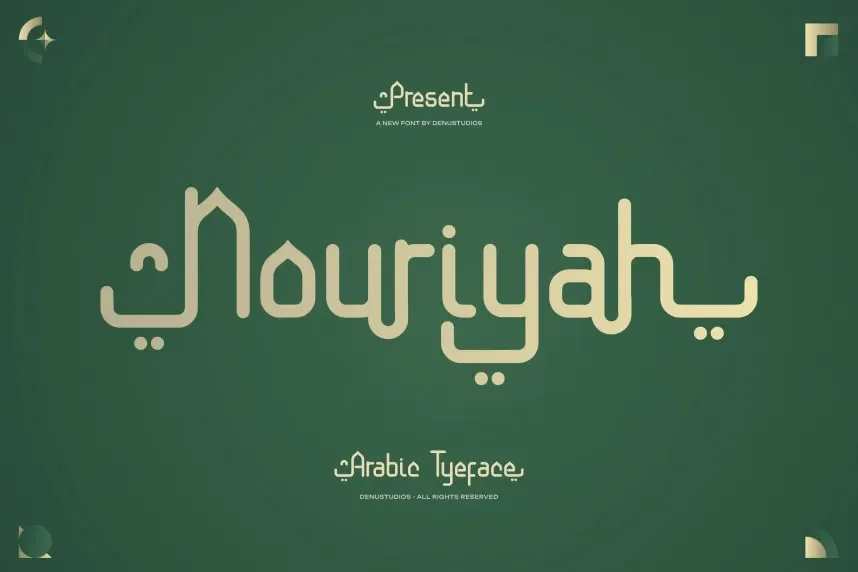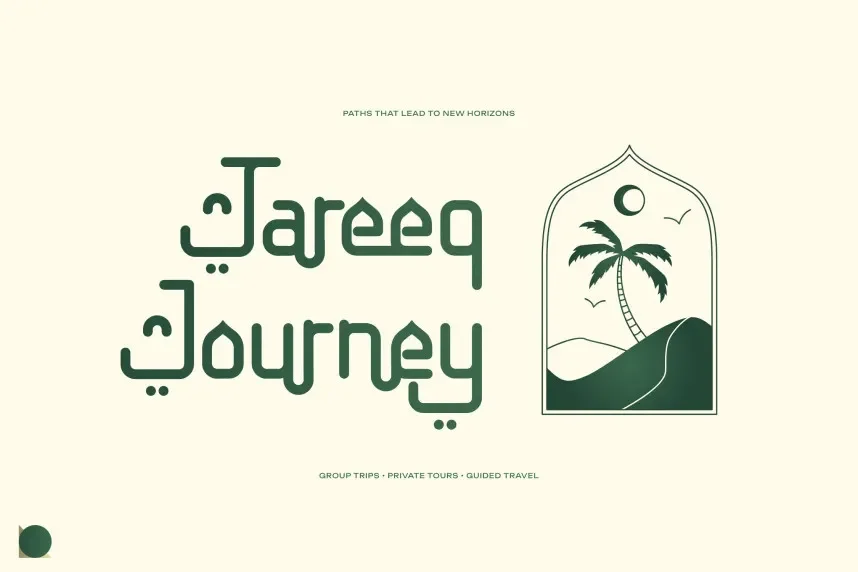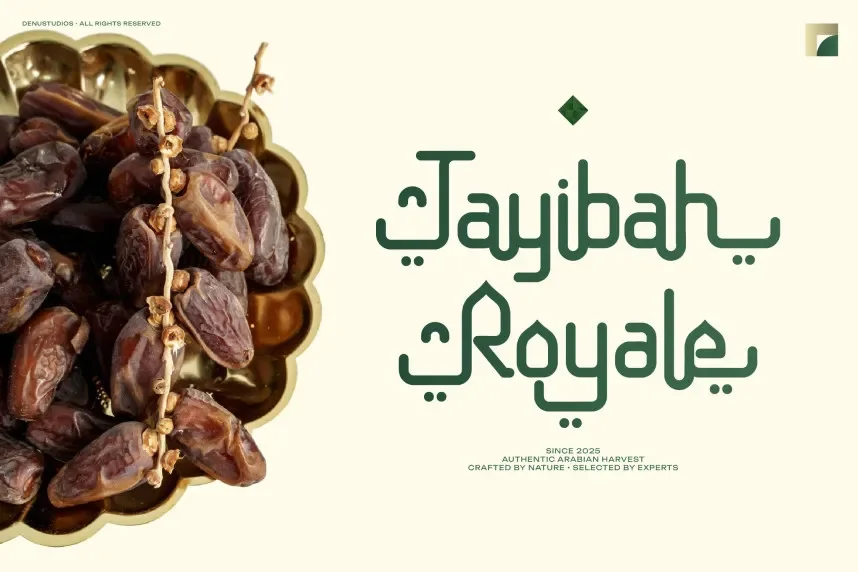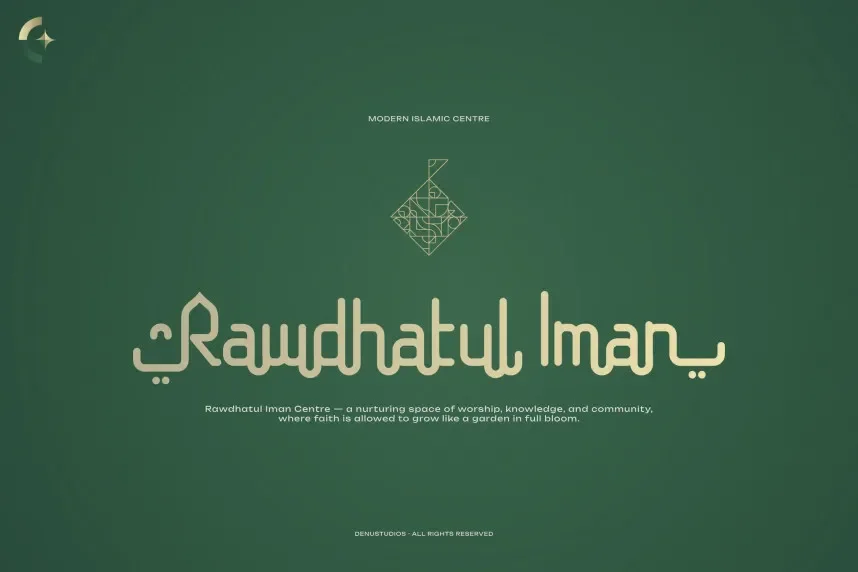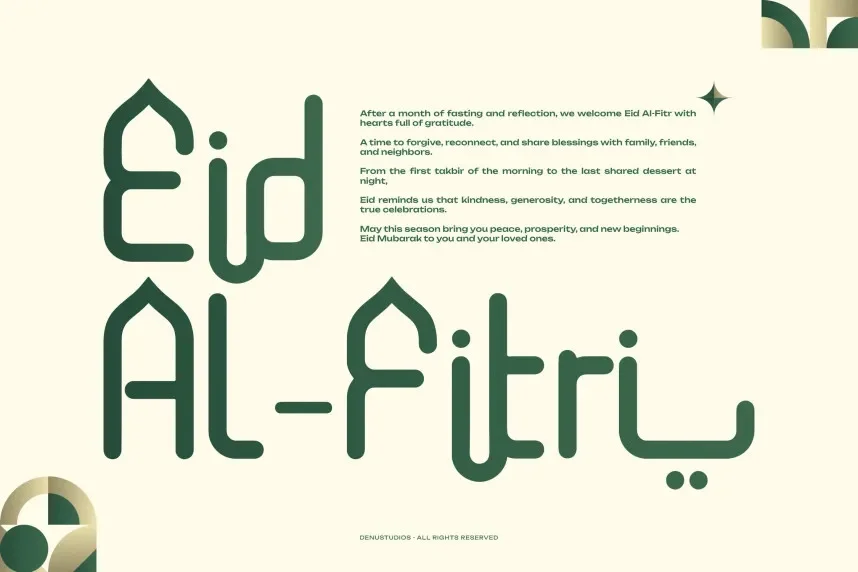
Nouriyah Typeface is an Arabic typeface designed to solve readability and stylistic consistency issues in digital and print content. Its modern design ensures legibility across headings, UI, branding, and editorial layouts.
The font features balanced proportions, smooth curves, and clear connections between letters. It supports Arabic calligraphic aesthetics while maintaining technical precision, making it compatible with multilingual design projects and responsive digital platforms.